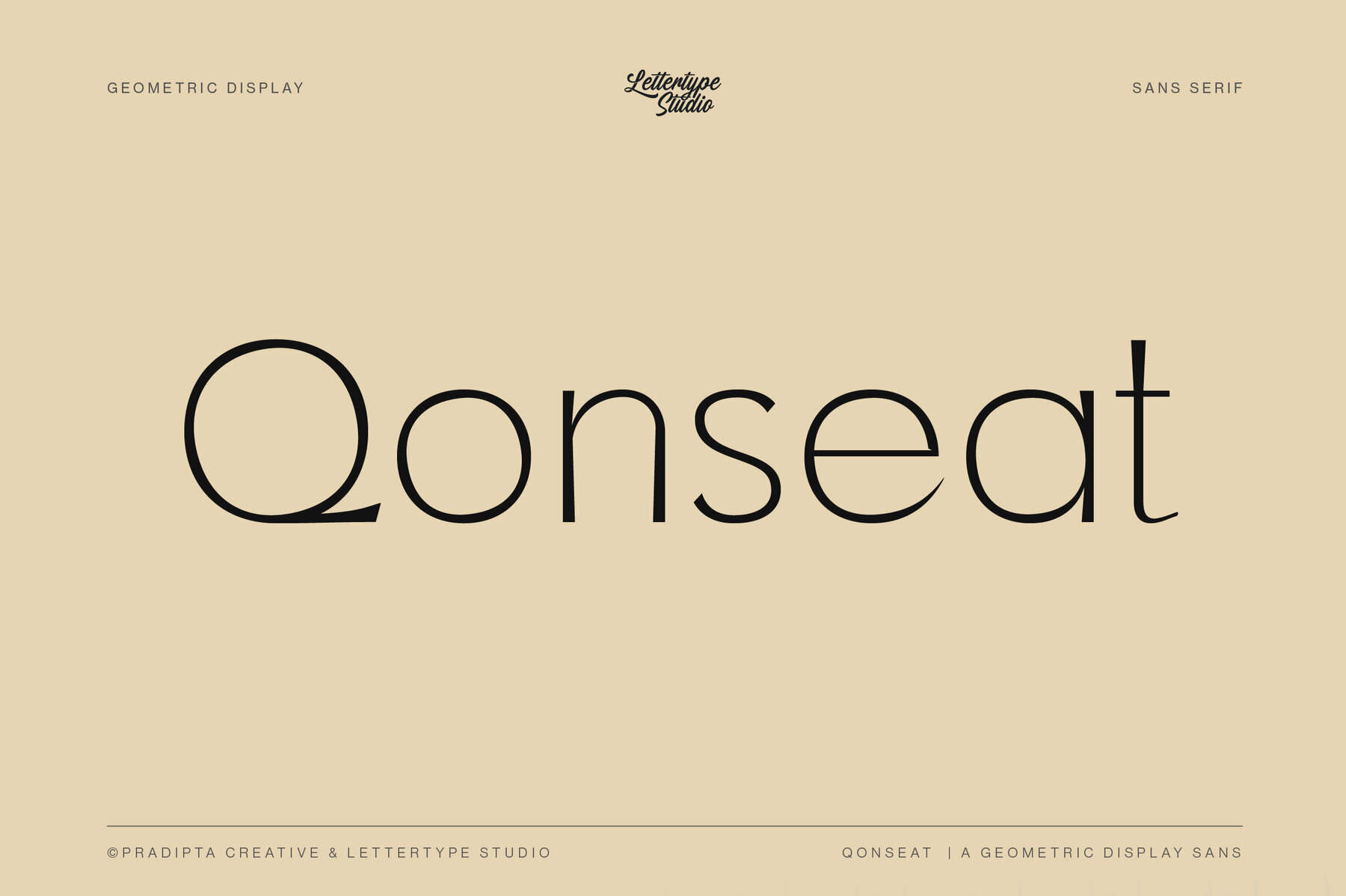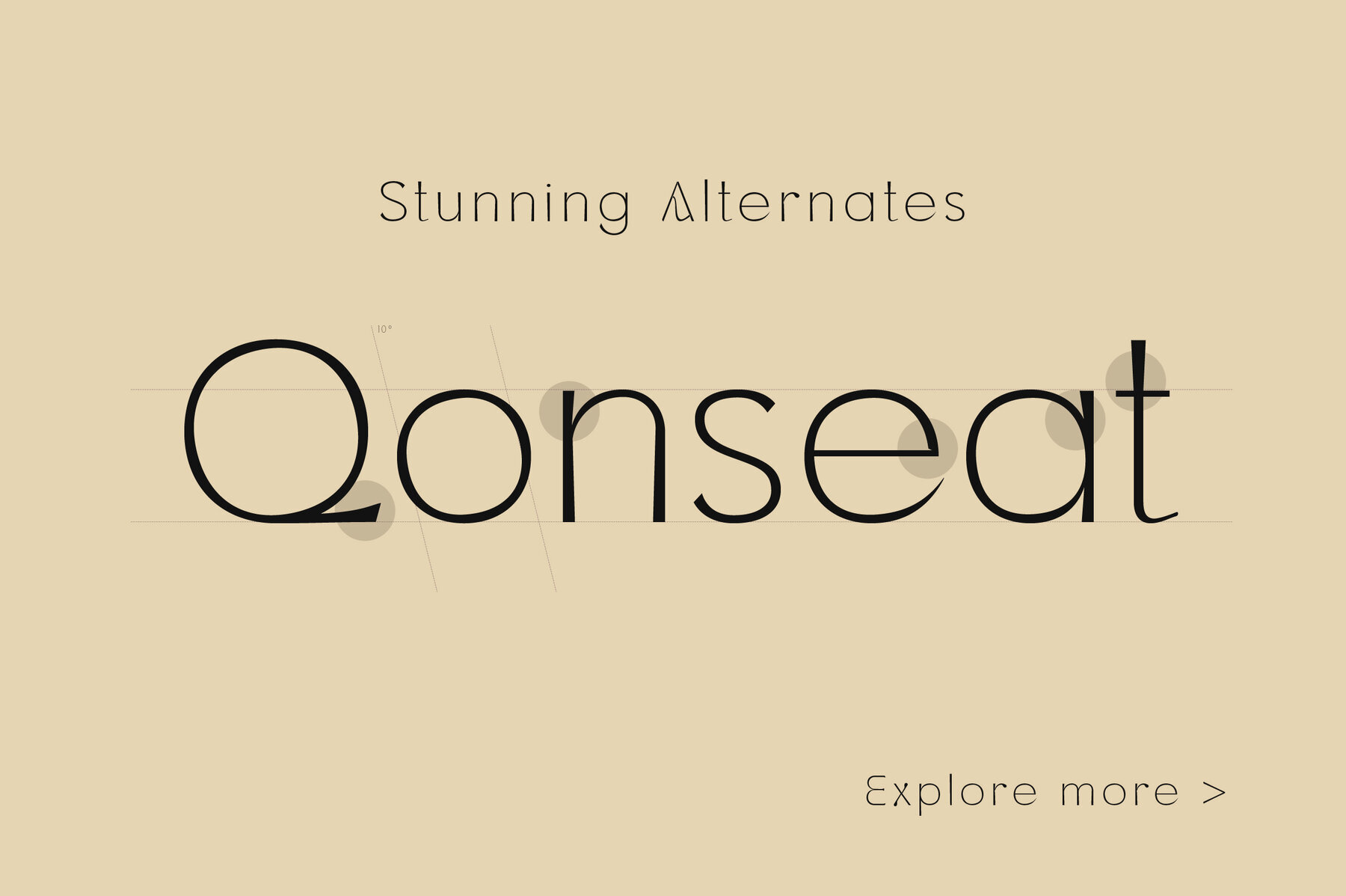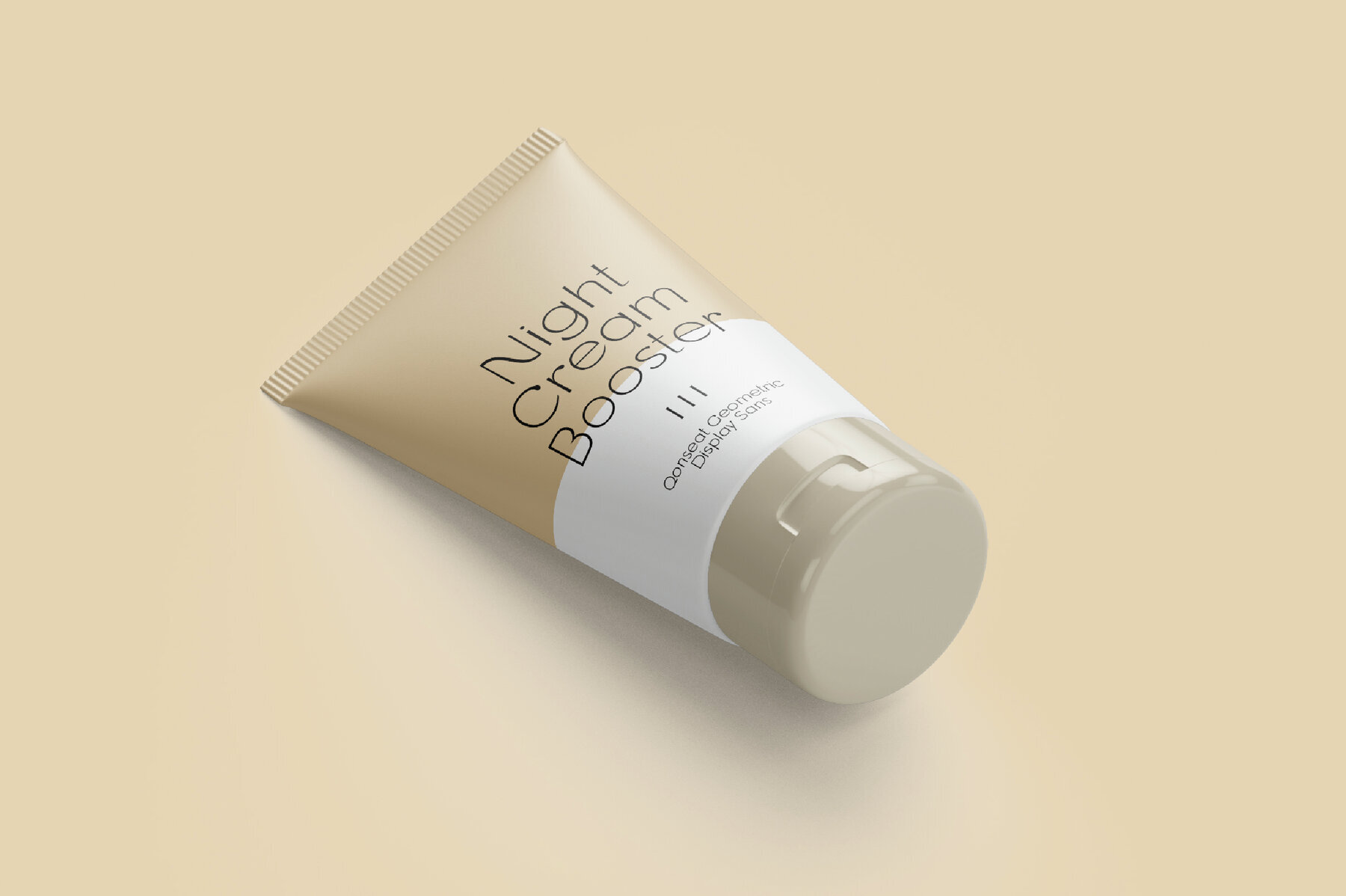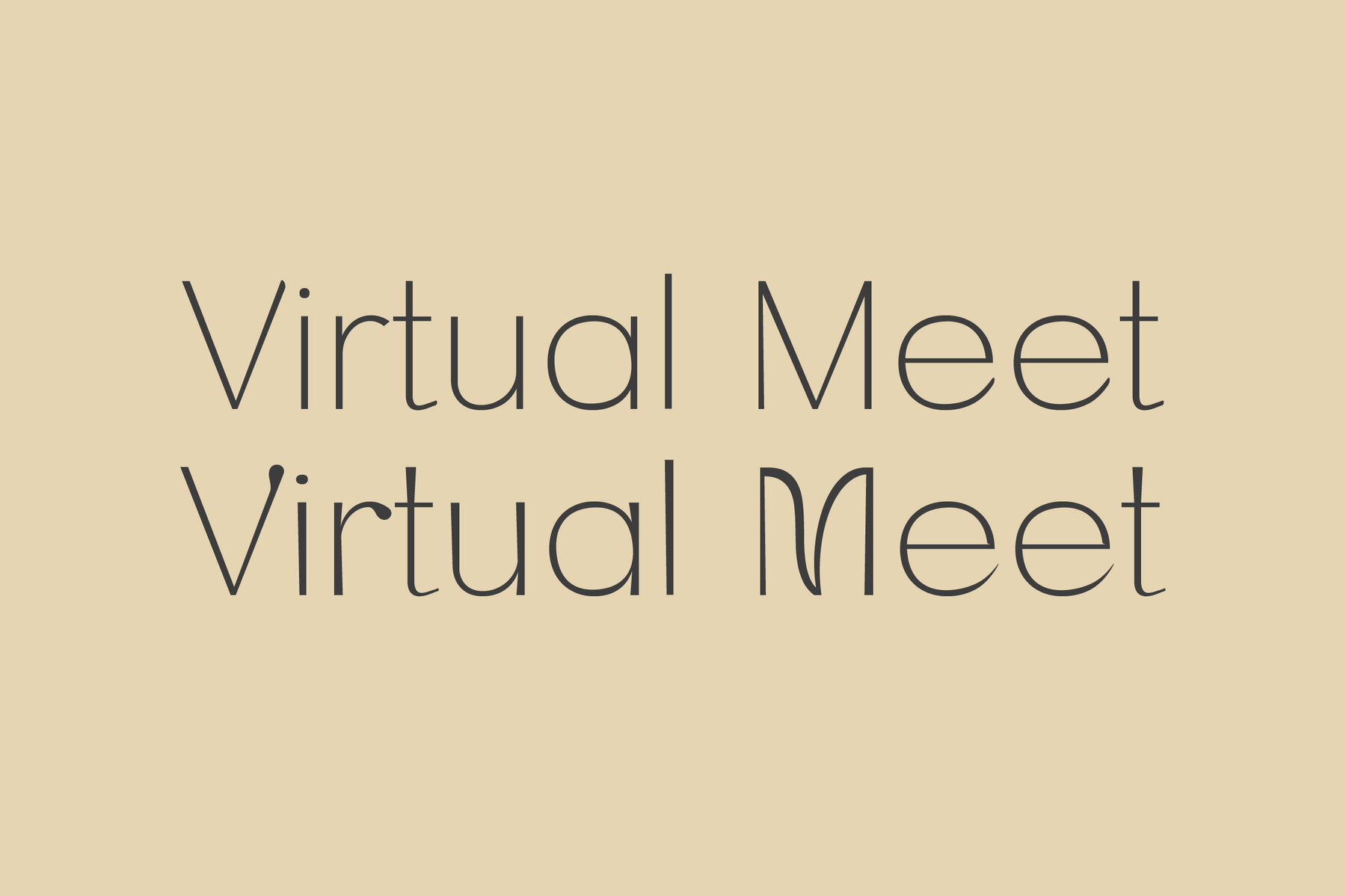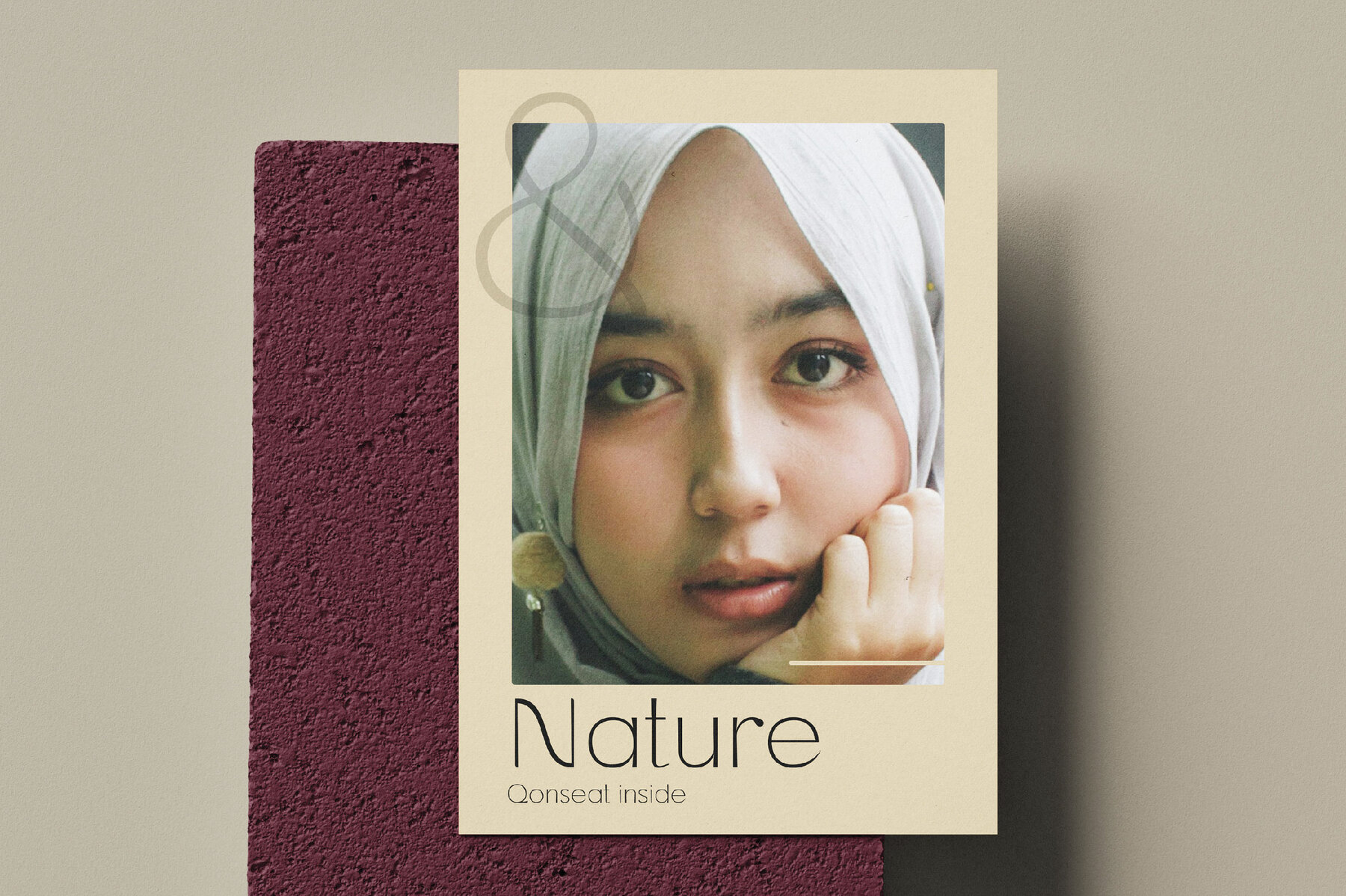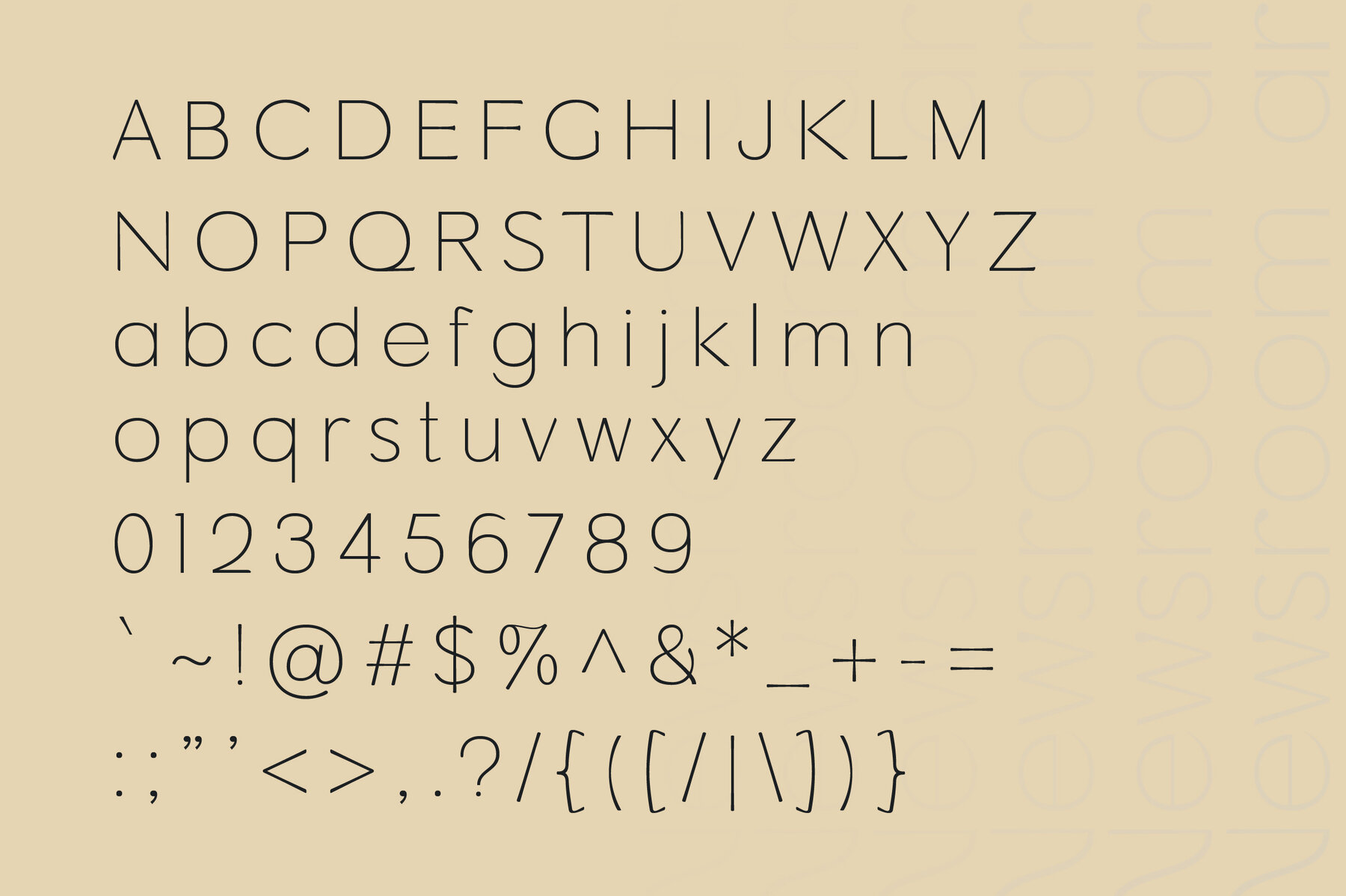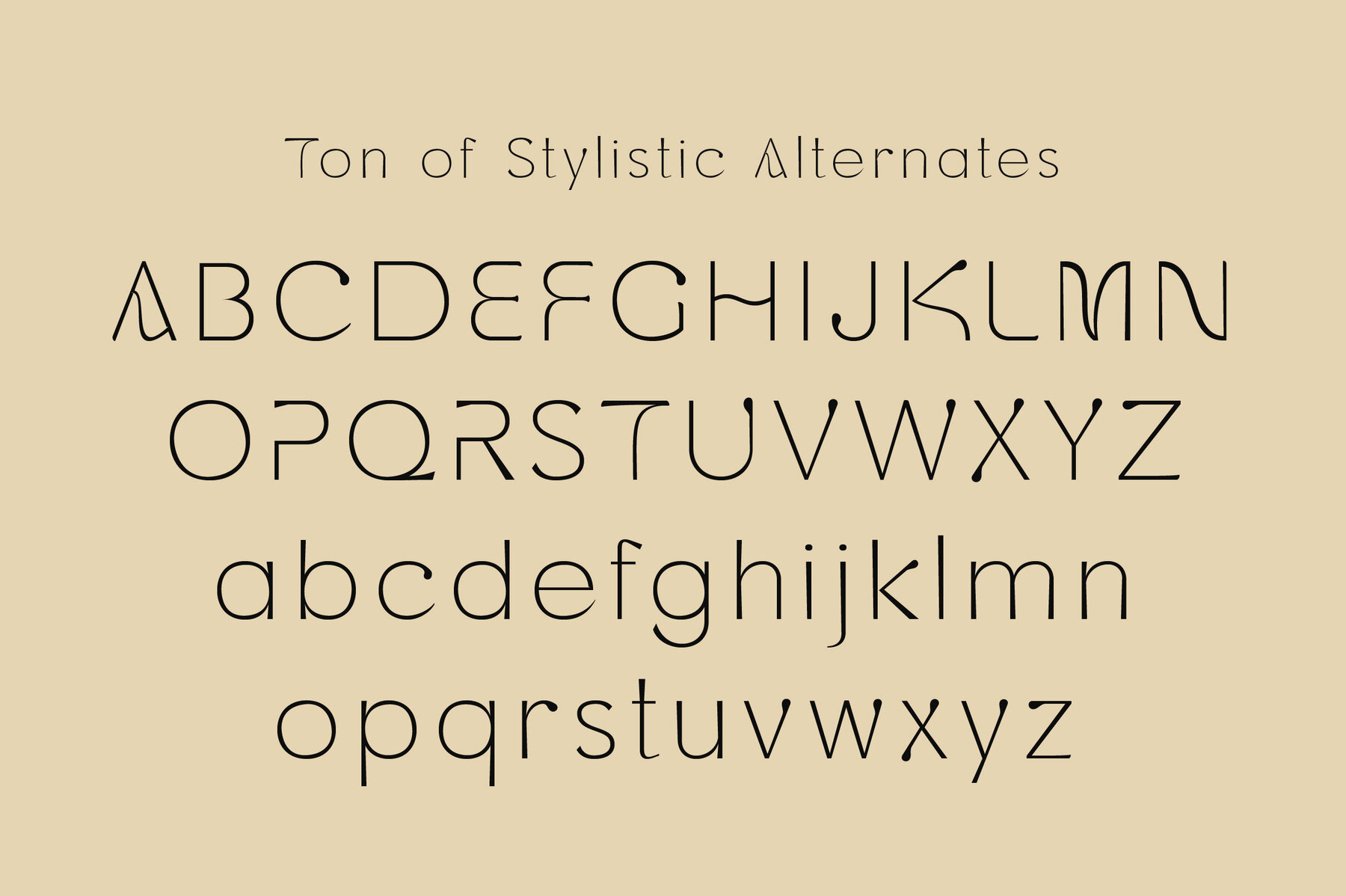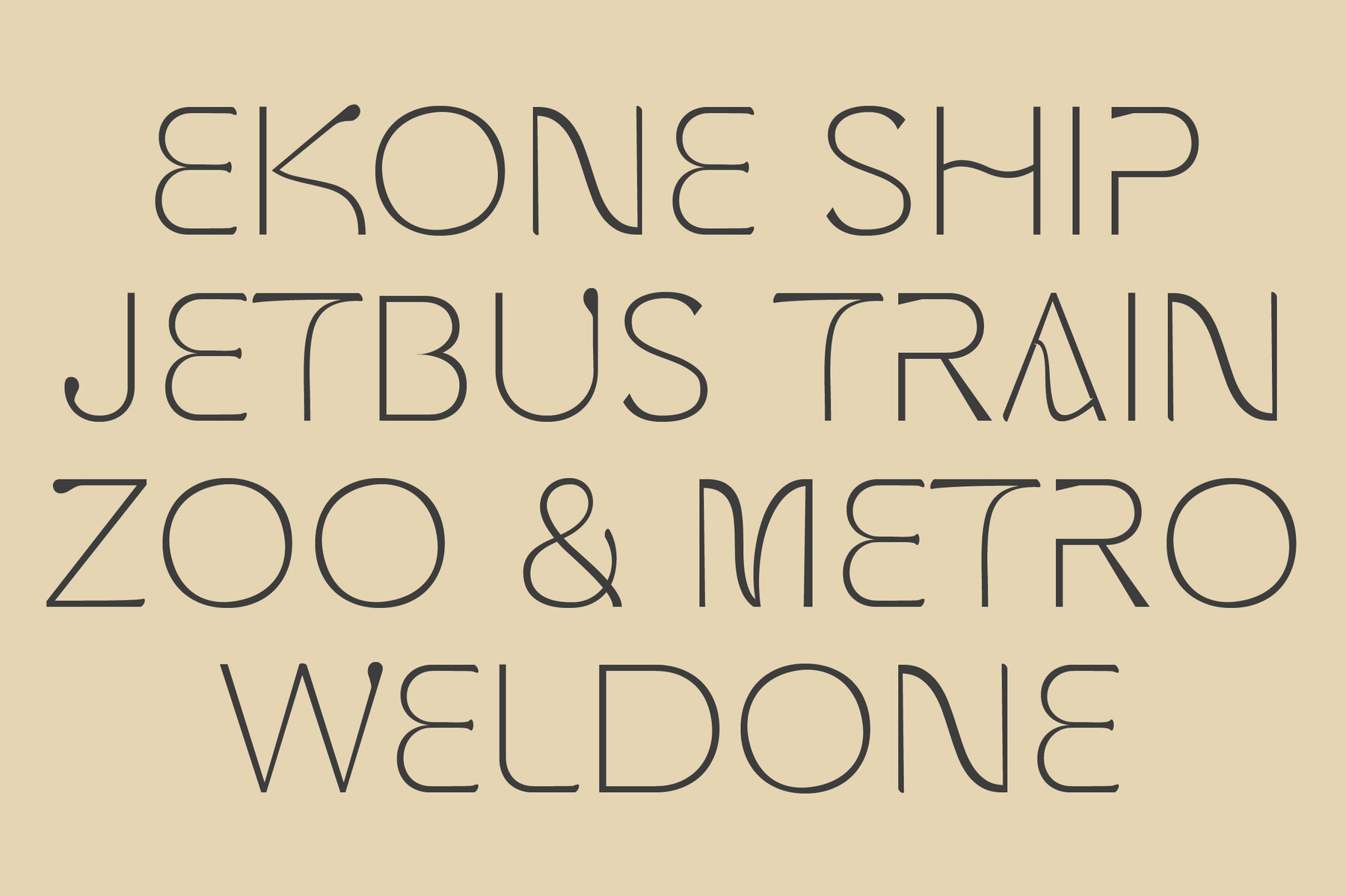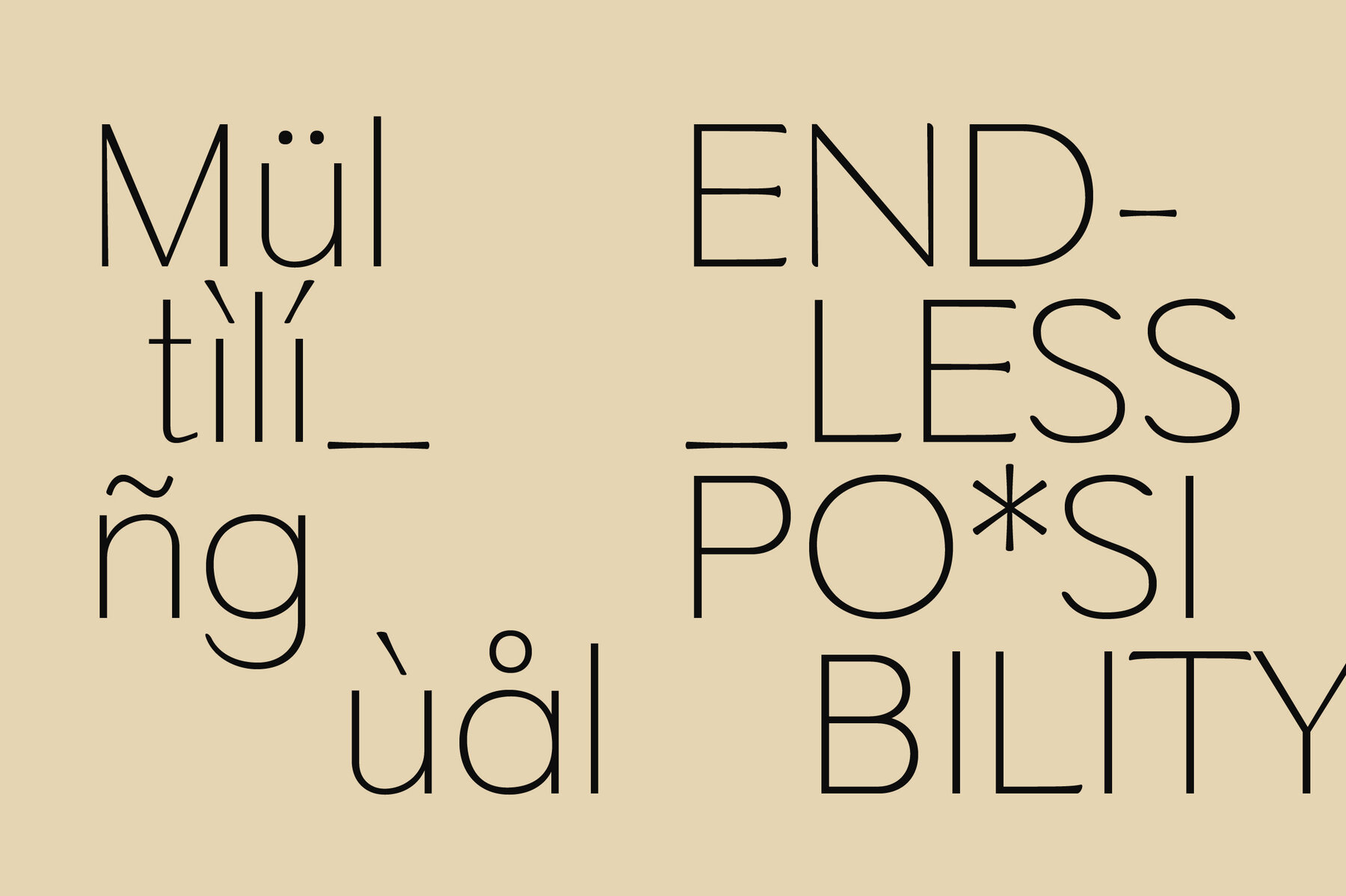
Qonseat Font
Qonseat Regular
Qonseat is a geometric display sans serif font designed for bold visual impact and modern versatility. With more than 50 alternate glyphs, it provides creative flexibility for designers who aim to craft distinctive logos and unique branding identities. The precise geometry and balanced letterforms give Qonseat a clean, professional look, making it ideal for both digital and print applications where clarity and strong presence matter. This font is well-suited to projects that require a sleek, contemporary touch. Qonseat’s structure ensures legibility at any scale, from editorial layouts and headlines to packaging and labels. Its multilingual support and wide range of alternates allow seamless adaptation across different design needs, from editorial compositions to lifestyle and fashion branding.Qonseat Geometric Display Sans Serif Font